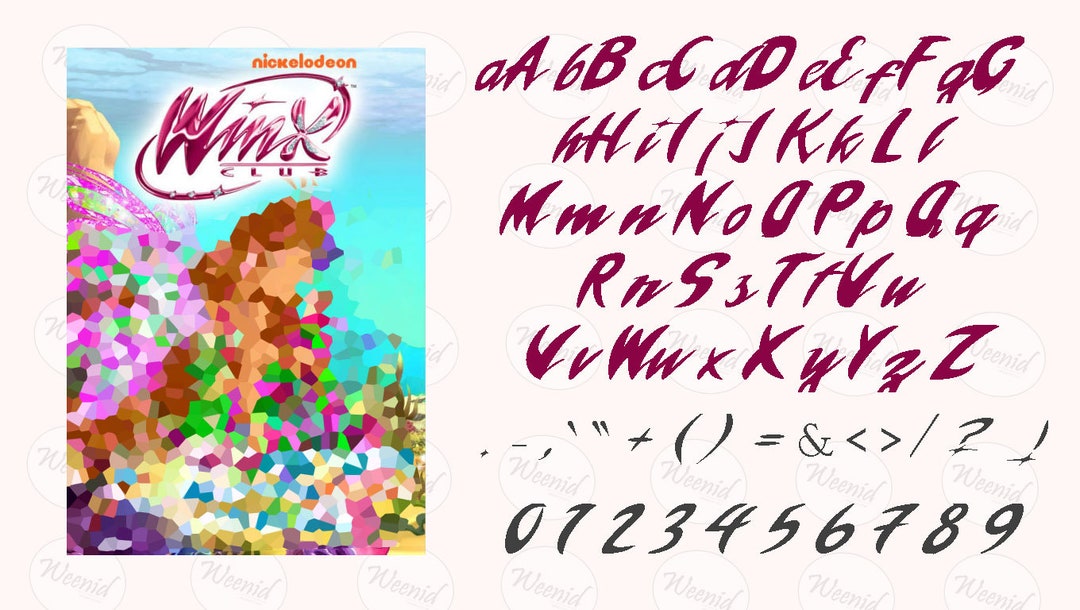
Winx Club Logo Font . The series is broadcast in over 130 countries worldwide and is the first italian cartoon to be sold in the united states. The following picture is a collage with all the different translations of the show's logo, along with its respective language. I am curious if anyone has the fonts for winx club logos? Winx club [tv show] font. The font used for the winx club logo is very similar to winx script designed by kustren. The font is free for personal use and you can. Winx font is available for free download for noncommercial, personal projects. The series portrays a group of teenage fairy friends who attend a magical. Winx club is an italian animated television series. Winx font is a fancy, various font designed by kustren monte. What is the font used in the word “club” in the logo? Also the font of the main “winx” word. Here is a list of title fonts used in the opening credits and/or title screens of the show winx club and world of winx.
The series portrays a group of teenage fairy friends who attend a magical. I am curious if anyone has the fonts for winx club logos? The series is broadcast in over 130 countries worldwide and is the first italian cartoon to be sold in the united states. The following picture is a collage with all the different translations of the show's logo, along with its respective language. What is the font used in the word “club” in the logo? Winx font is a fancy, various font designed by kustren monte. Winx club [tv show] font. Here is a list of title fonts used in the opening credits and/or title screens of the show winx club and world of winx. The font is free for personal use and you can. Winx club is an italian animated television series.
Winx Script Font
Winx Club Logo Font The series is broadcast in over 130 countries worldwide and is the first italian cartoon to be sold in the united states. Winx club [tv show] font. The font used for the winx club logo is very similar to winx script designed by kustren. Winx club is an italian animated television series. Here is a list of title fonts used in the opening credits and/or title screens of the show winx club and world of winx. The font is free for personal use and you can. What is the font used in the word “club” in the logo? Also the font of the main “winx” word. The series is broadcast in over 130 countries worldwide and is the first italian cartoon to be sold in the united states. The following picture is a collage with all the different translations of the show's logo, along with its respective language. The series portrays a group of teenage fairy friends who attend a magical. Winx font is available for free download for noncommercial, personal projects. I am curious if anyone has the fonts for winx club logos? Winx font is a fancy, various font designed by kustren monte.
Winx Club Film Font Download fonts Winx Club Logo Font The series is broadcast in over 130 countries worldwide and is the first italian cartoon to be sold in the united states. What is the font used in the word “club” in the logo? Also the font of the main “winx” word. Winx font is a fancy, various font designed by kustren monte. The font is free for personal use. Winx Club Logo Font.
Logo stella winx club Banque de photographies et d’images à haute Winx Club Logo Font Here is a list of title fonts used in the opening credits and/or title screens of the show winx club and world of winx. Winx club [tv show] font. The series is broadcast in over 130 countries worldwide and is the first italian cartoon to be sold in the united states. Winx font is available for free download for noncommercial,. Winx Club Logo Font.
Winx Club Logo Background by LadyAngelia13 on DeviantArt Winx Club Logo Font Winx font is available for free download for noncommercial, personal projects. The font used for the winx club logo is very similar to winx script designed by kustren. Winx font is a fancy, various font designed by kustren monte. The series portrays a group of teenage fairy friends who attend a magical. I am curious if anyone has the fonts. Winx Club Logo Font.
Winx Club Logopedia Fandom Winx Club Logo Font The font is free for personal use and you can. The font used for the winx club logo is very similar to winx script designed by kustren. What is the font used in the word “club” in the logo? Also the font of the main “winx” word. The series is broadcast in over 130 countries worldwide and is the first. Winx Club Logo Font.